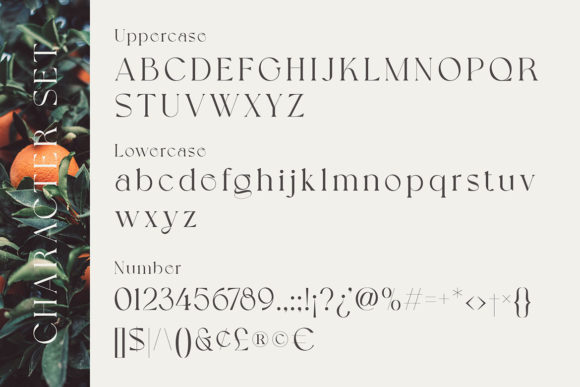
Grapevine Font
Grapevine is a trendy and stylish serif font designed for your fancy projects. It is perfect for any branding project such as logos, t-shirt printing, creative products, or pretty much anything that could benefit from a distinct vibe. This font is PUA encoded which means you can access all of the glyphs and swashes with ease!